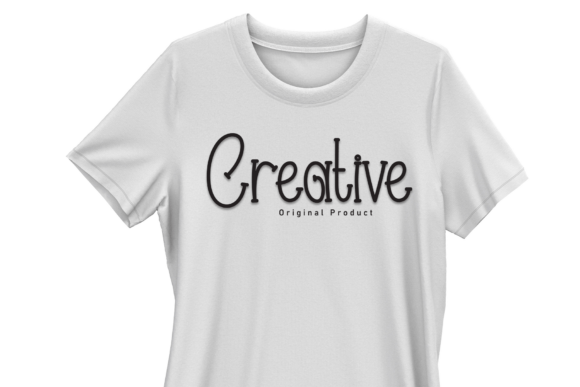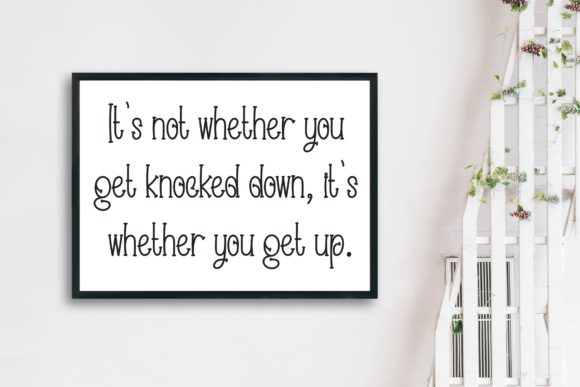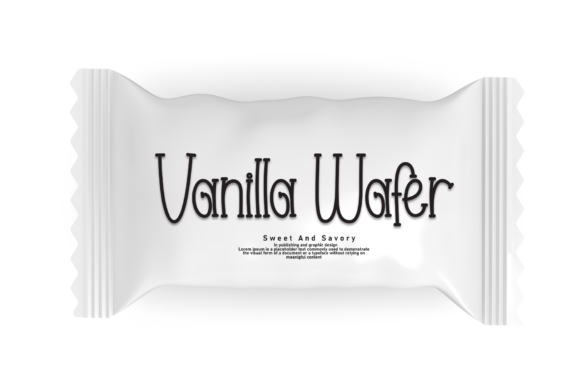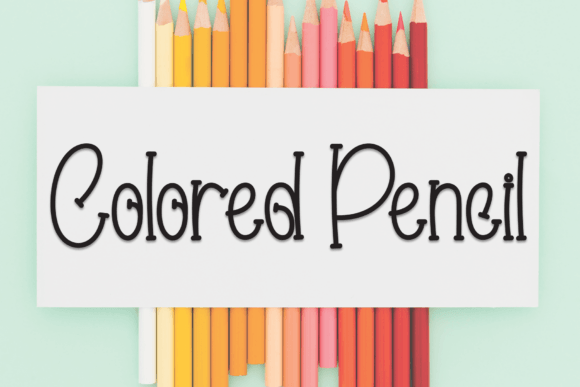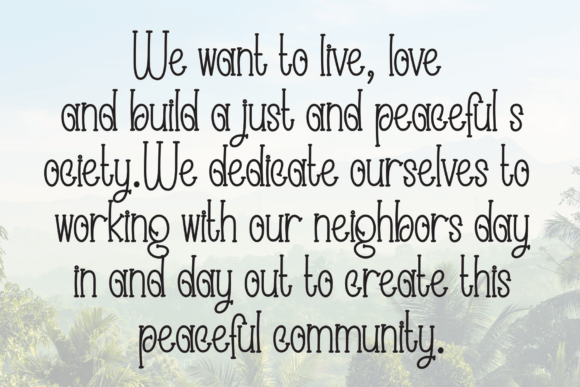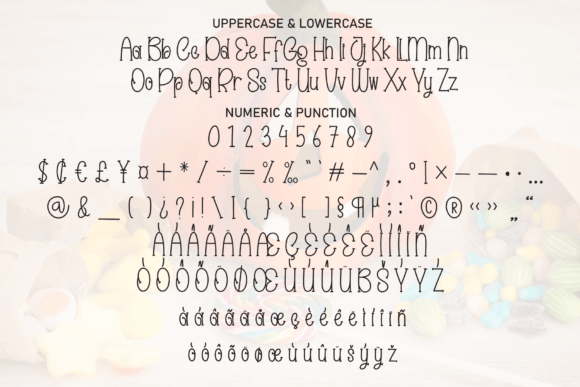
Candy Pumpkin Font: Add a Touch of Sweetness to Your Designs
Are you looking for a font that can add a playful and cheerful touch to your designs? Look no further than the Candy Pumpkin Font! This cute, handwritten font is perfect for creating invitations, decorations, and any other project that needs a dash of sweetness.
What is Candy Pumpkin Font?
Candy Pumpkin Font is a fun and bouncy handwritten font that is sure to capture the attention of your audience. Its playful style makes it ideal for designs that require a lighthearted and cheerful touch. Whether you’re creating invitations for a party, designing decorations for a special event, or simply want to add a personal touch to your digital creations, Candy Pumpkin Font is the perfect choice.
Features of Candy Pumpkin Font
- Cute and Playful: Candy Pumpkin Font has a unique and adorable style that is sure to bring a smile to anyone’s face. Its playful design makes it perfect for creating fun and engaging content.
- Handwritten: This font has a beautiful handwritten feel that gives it a personal and authentic touch. It’s perfect for creating designs that require a human touch.
- Versatile: Candy Pumpkin Font can be used for a wide range of projects, from invitations and decorations to digital graphics and more.
- Easy to Read: Despite its playful style, Candy Pumpkin Font is easy to read and understand, making it perfect for creating content that needs to be clear and concise.
Uses of Candy Pumpkin Font
Candy Pumpkin Font is a versatile font that can be used for a wide range of projects. Here are some ideas to get you started:
- Invitations: Use Candy Pumpkin Font to create adorable invitations for parties, weddings, baby showers, and more.
- Decorations: Add a touch of sweetness to your decorations with Candy Pumpkin Font. Use it to create signs, banners, and other decorative elements.
- Digital Graphics: Use Candy Pumpkin Font to create fun and engaging digital graphics, such as social media posts, blog headers, and more.
- Crafting: Candy Pumpkin Font is perfect for crafters who love to create handmade cards, gift tags, and other paper crafts.
Candy Pumpkin Font is a fun and playful font that is perfect for adding a touch of sweetness to your designs. Its cute and handwritten style makes it ideal for invitations, decorations, and any other project that needs a lighthearted and cheerful touch. With its versatility and ease of use, Candy Pumpkin Font is a must-have for designers and crafters alike.